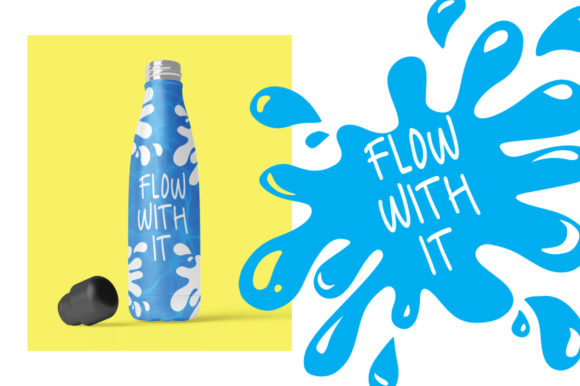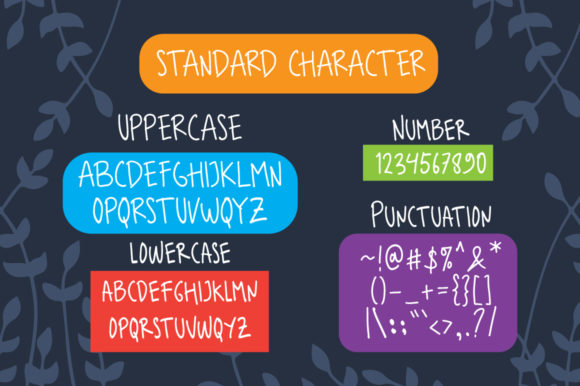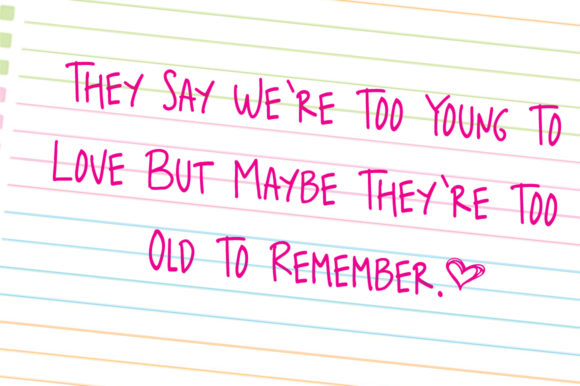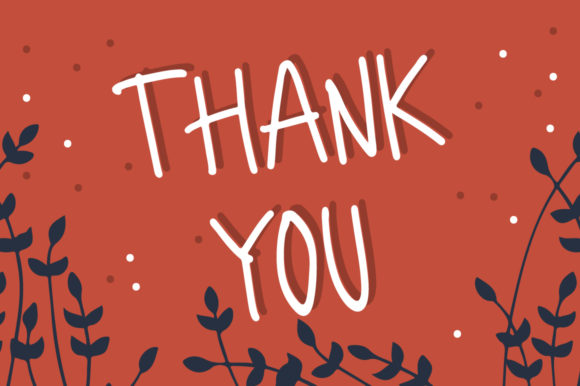
Kenneth Font
About Kenneth Font
Kenneth is a simple lettered and friendly handwritten font. It can be used on a variety of child related designs, so add it confidently and you will love the outcome.